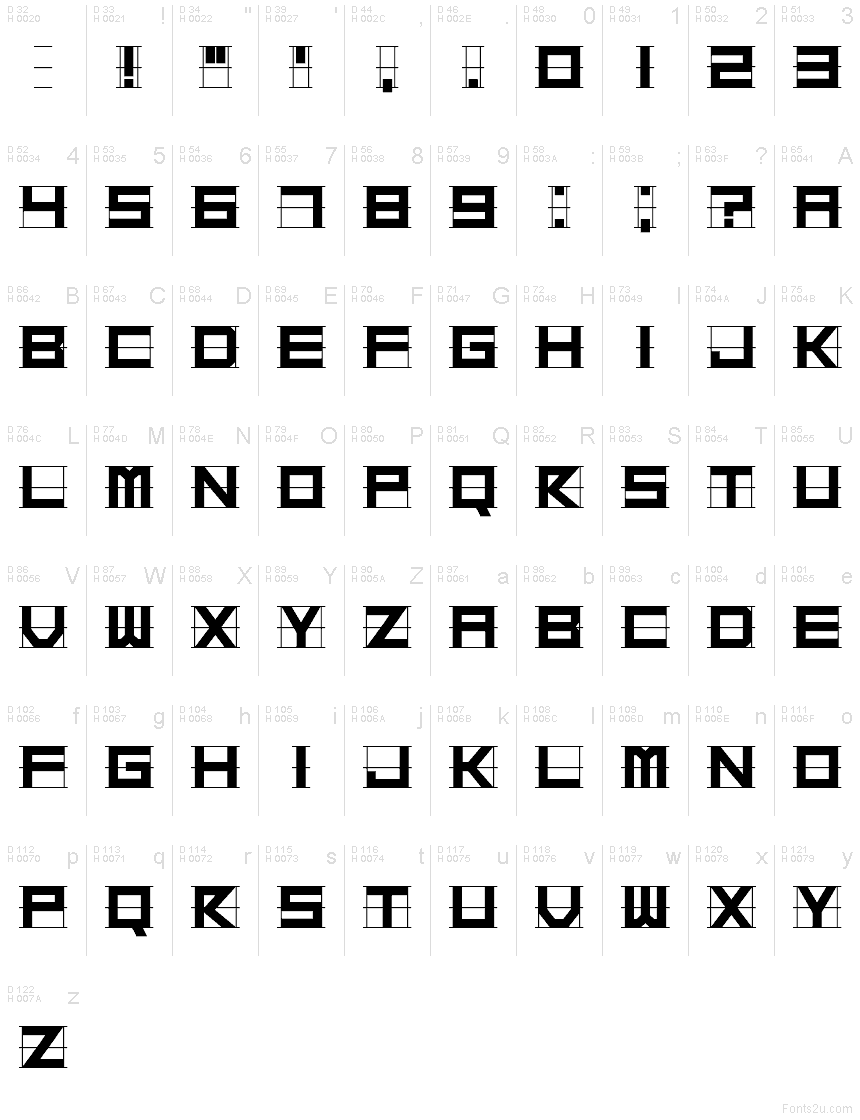
Scrambled Regular
Scrambled font by Vladimir Nikolic is a free display typeface offering an expanded futuristic structure. With geometric and modernist influences, it presents a unique architectural feel perfect for grabbing attention.
Elevate posters, leaflets, and magazine covers or design one-of-a-kind invitations and greeting cards. Magazine headings, website headers, social media posts, creative logos, packaging projects and branding designs can get a lift using this skilled tool.